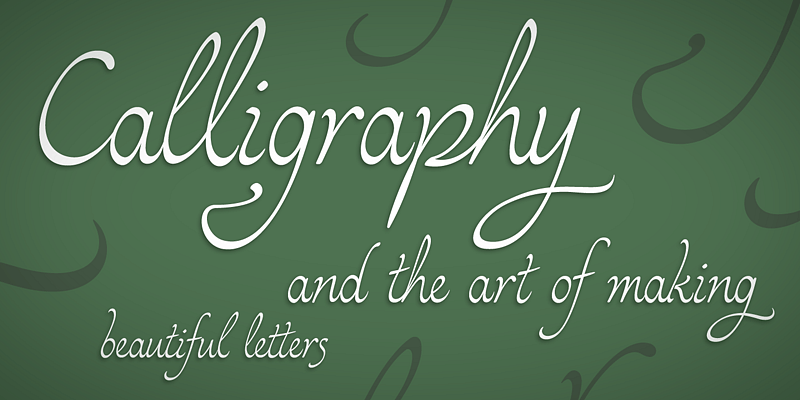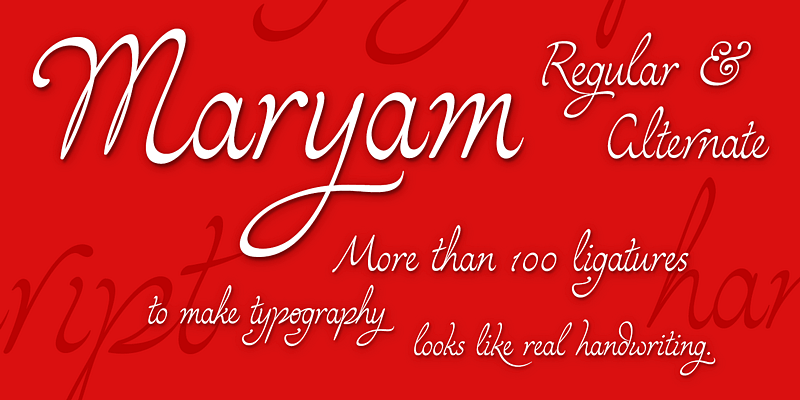
Maryam is a script type family designed by Ricardo Esteves. Because of moderate contrast, these fonts have ellegant and very legible forms even in small x-height sizes. There are more than 70 ligatures in each font, providing a lot of letterform variations that can make this type family look like real handwriting on a page.